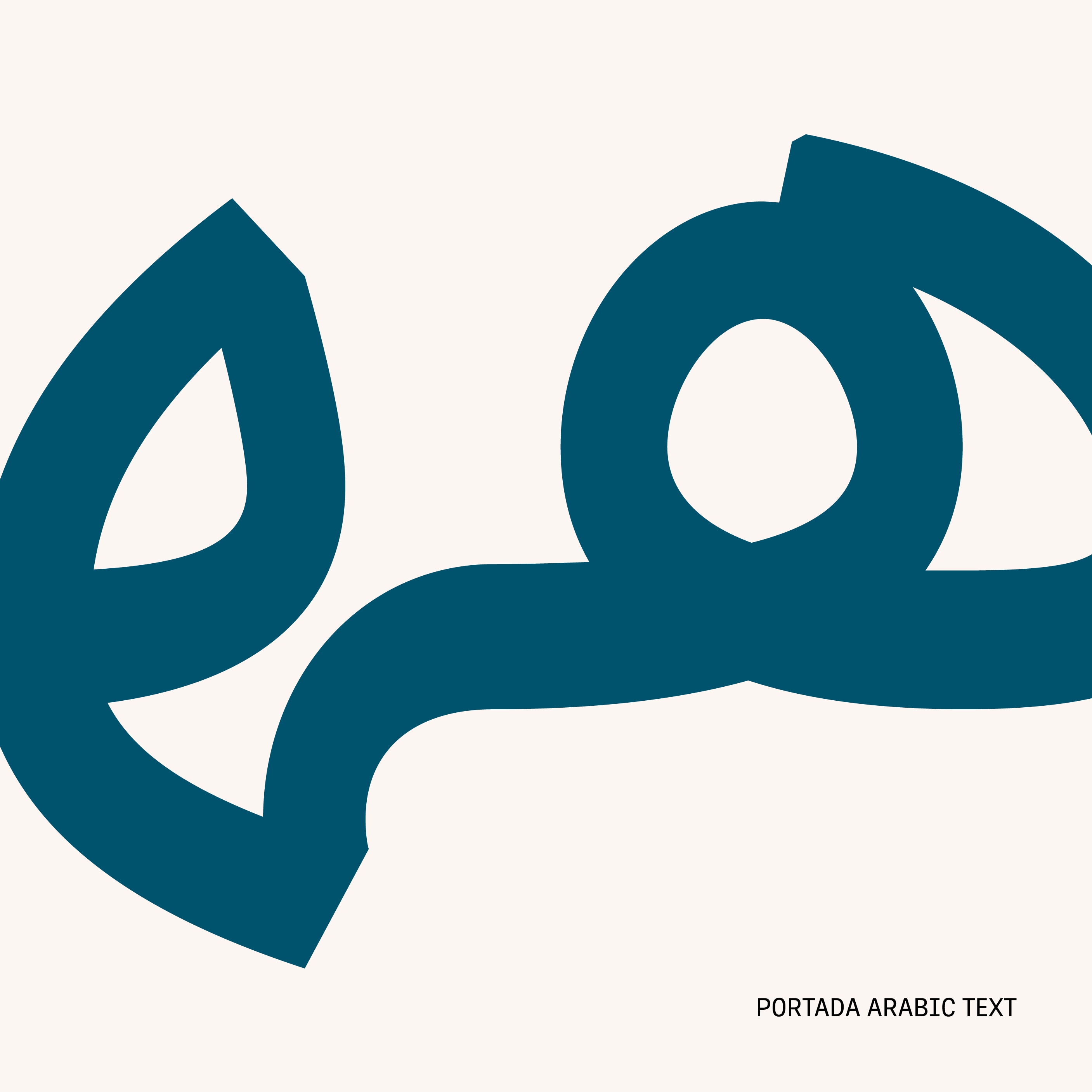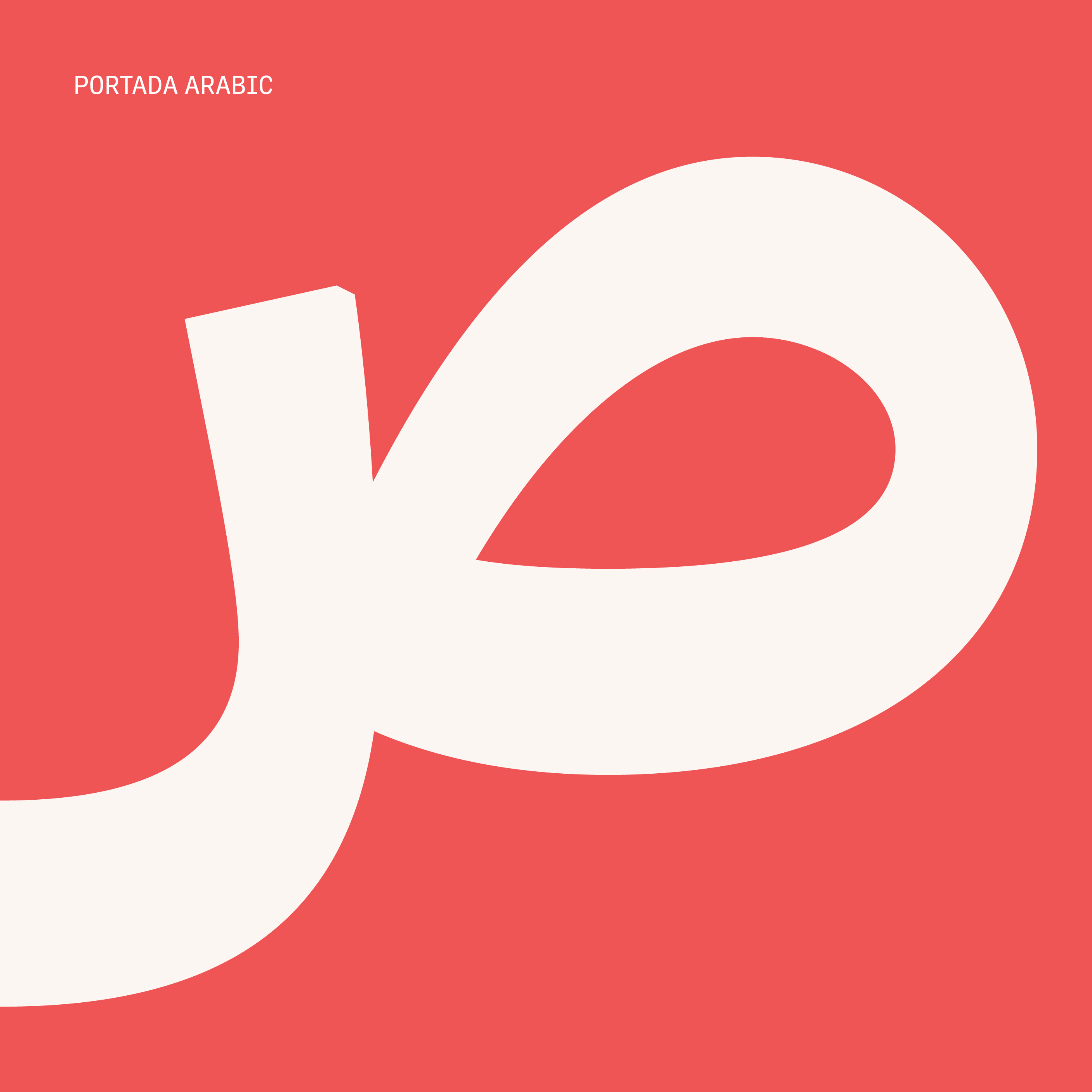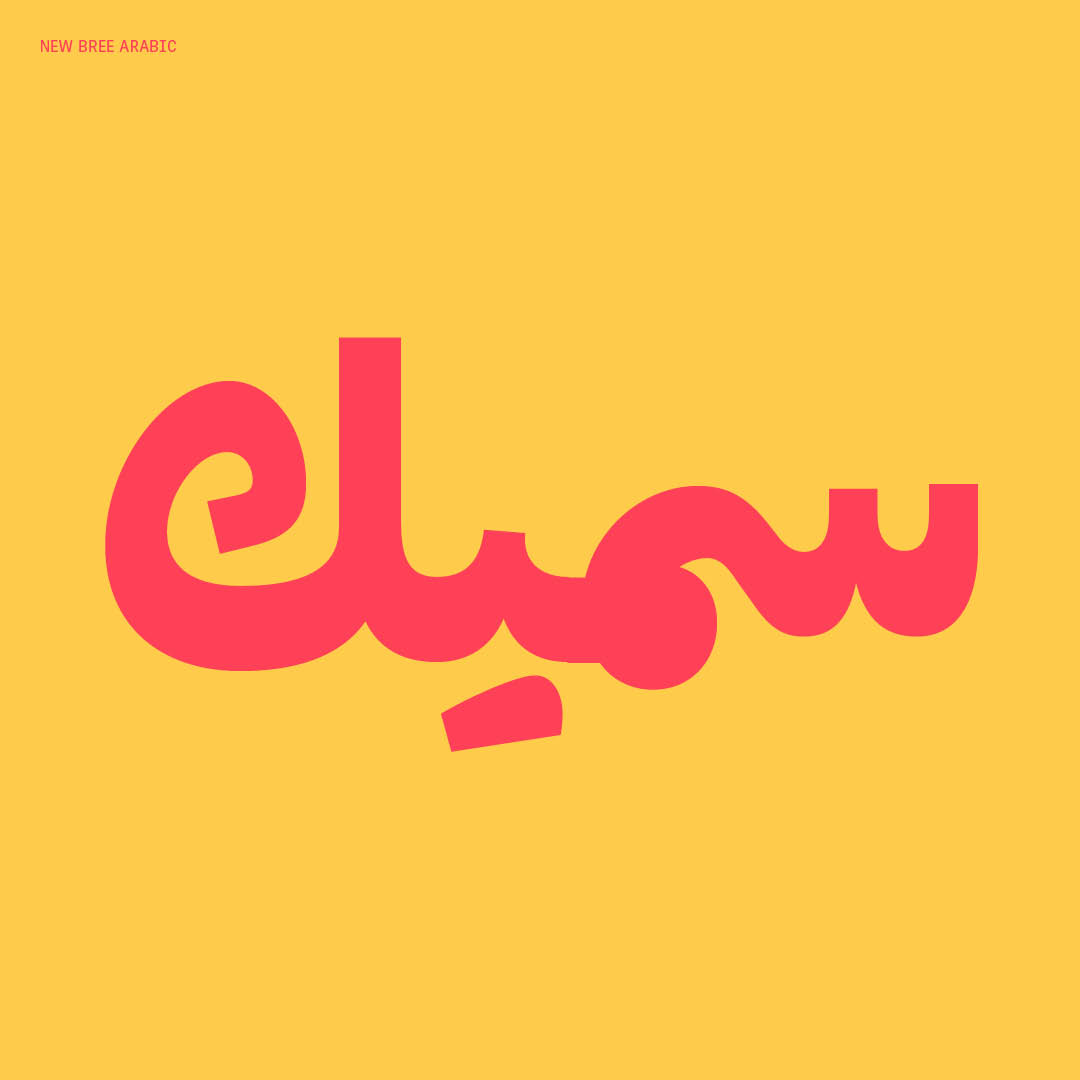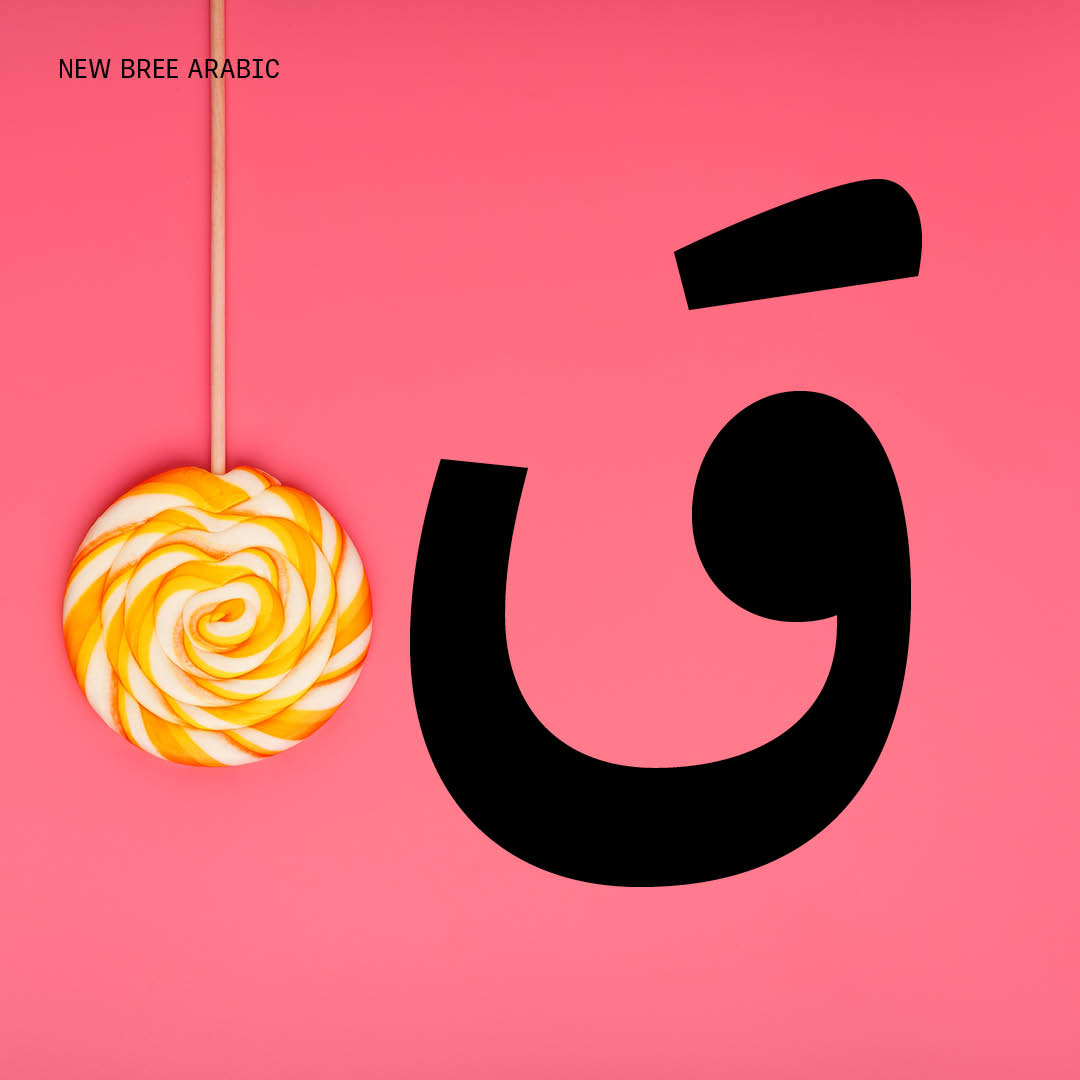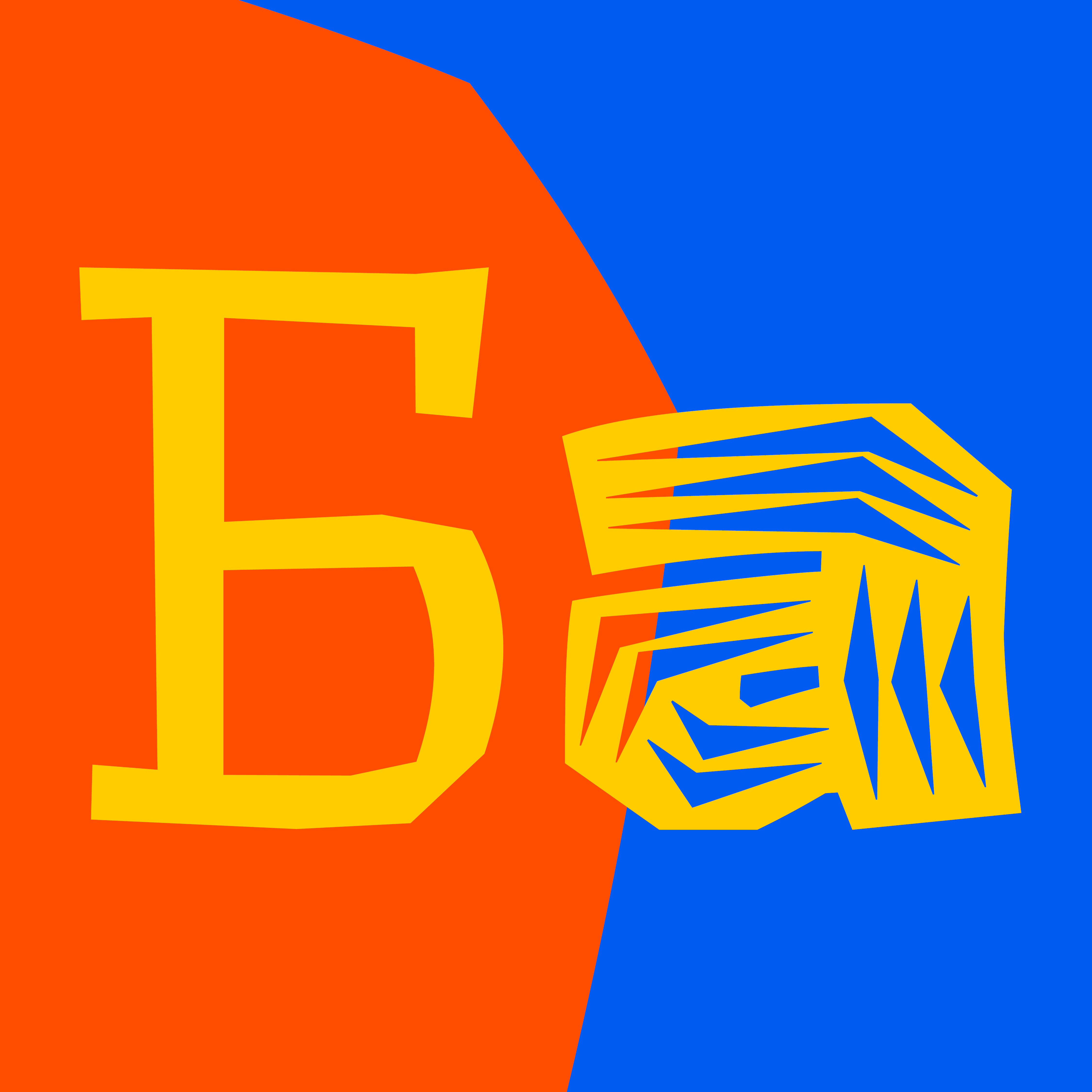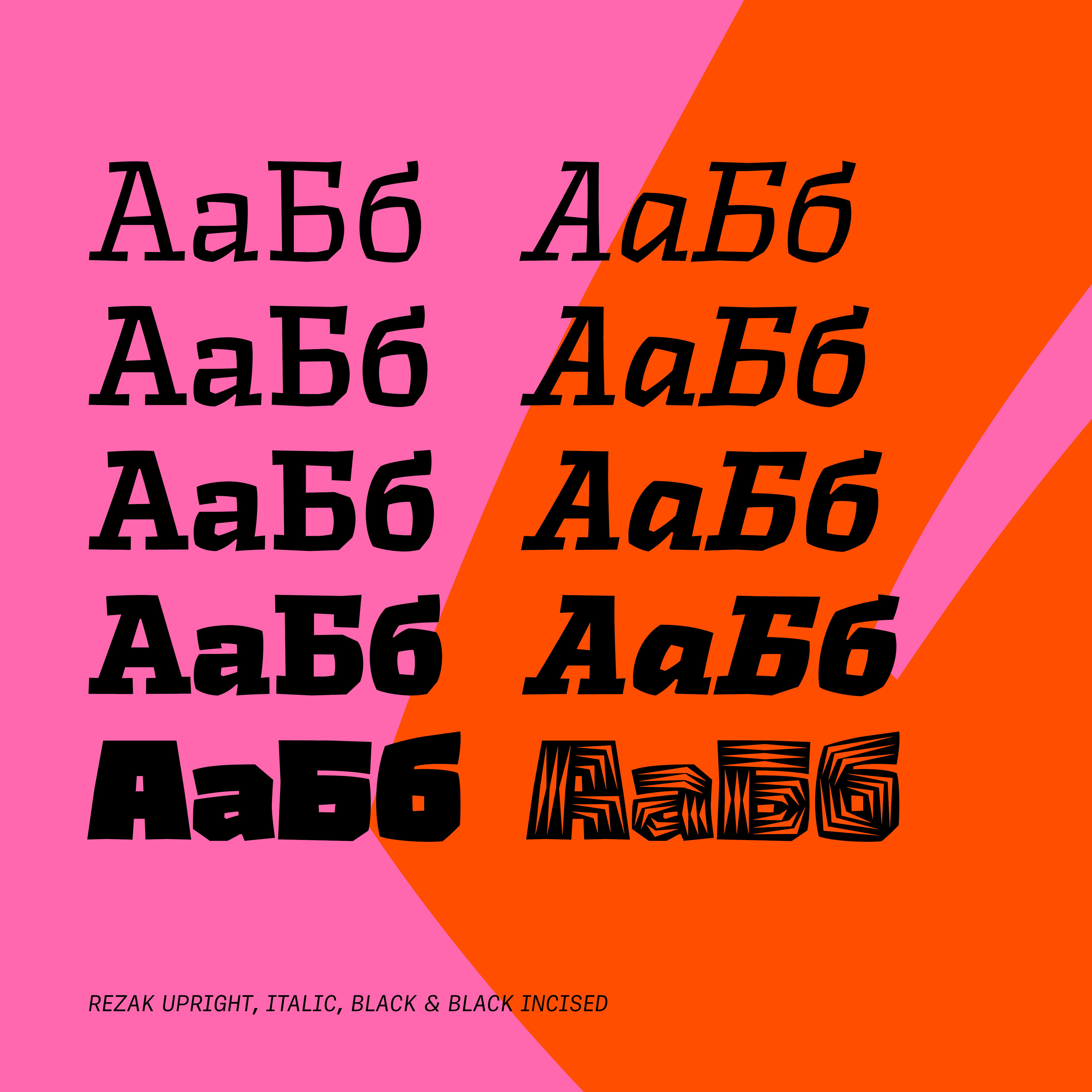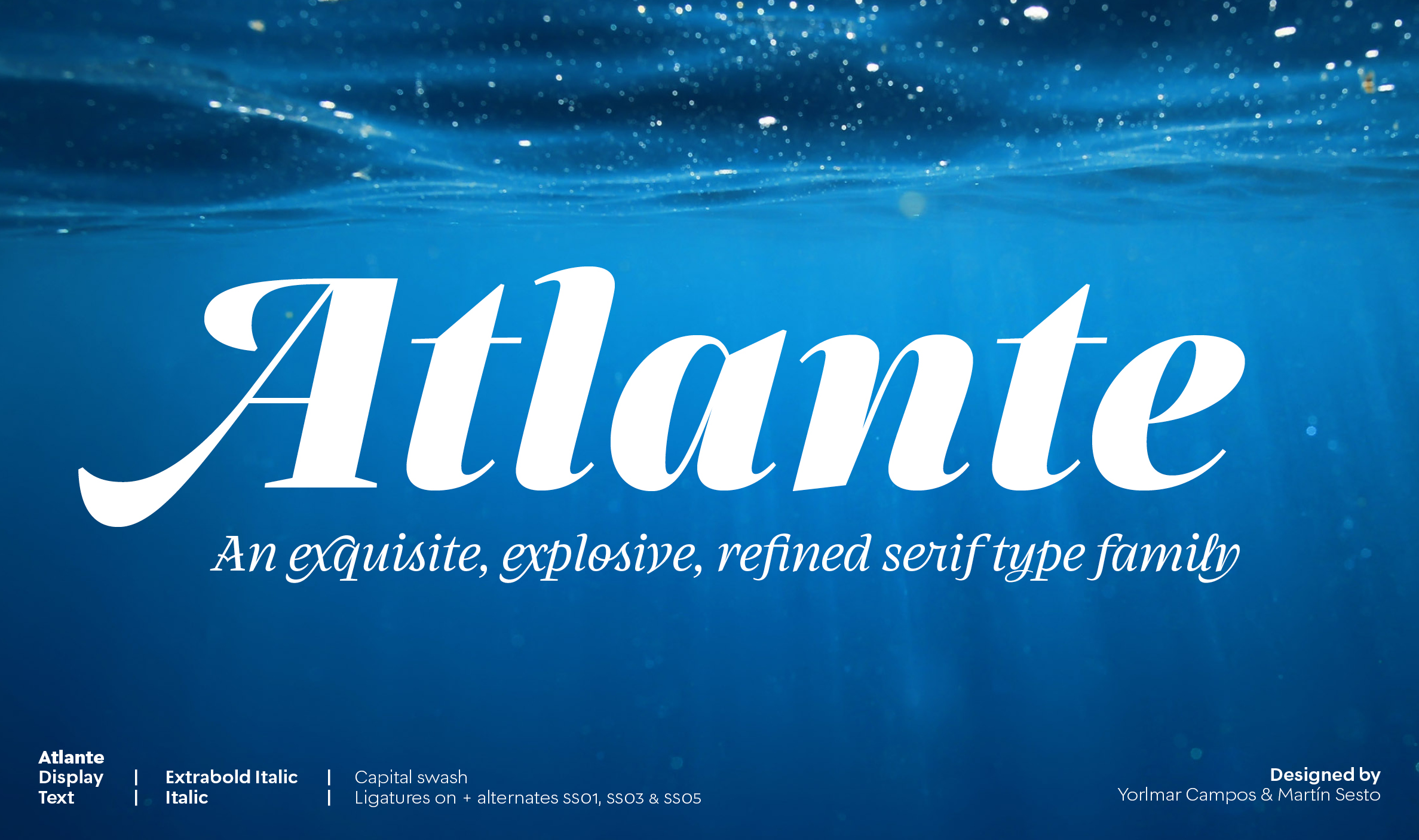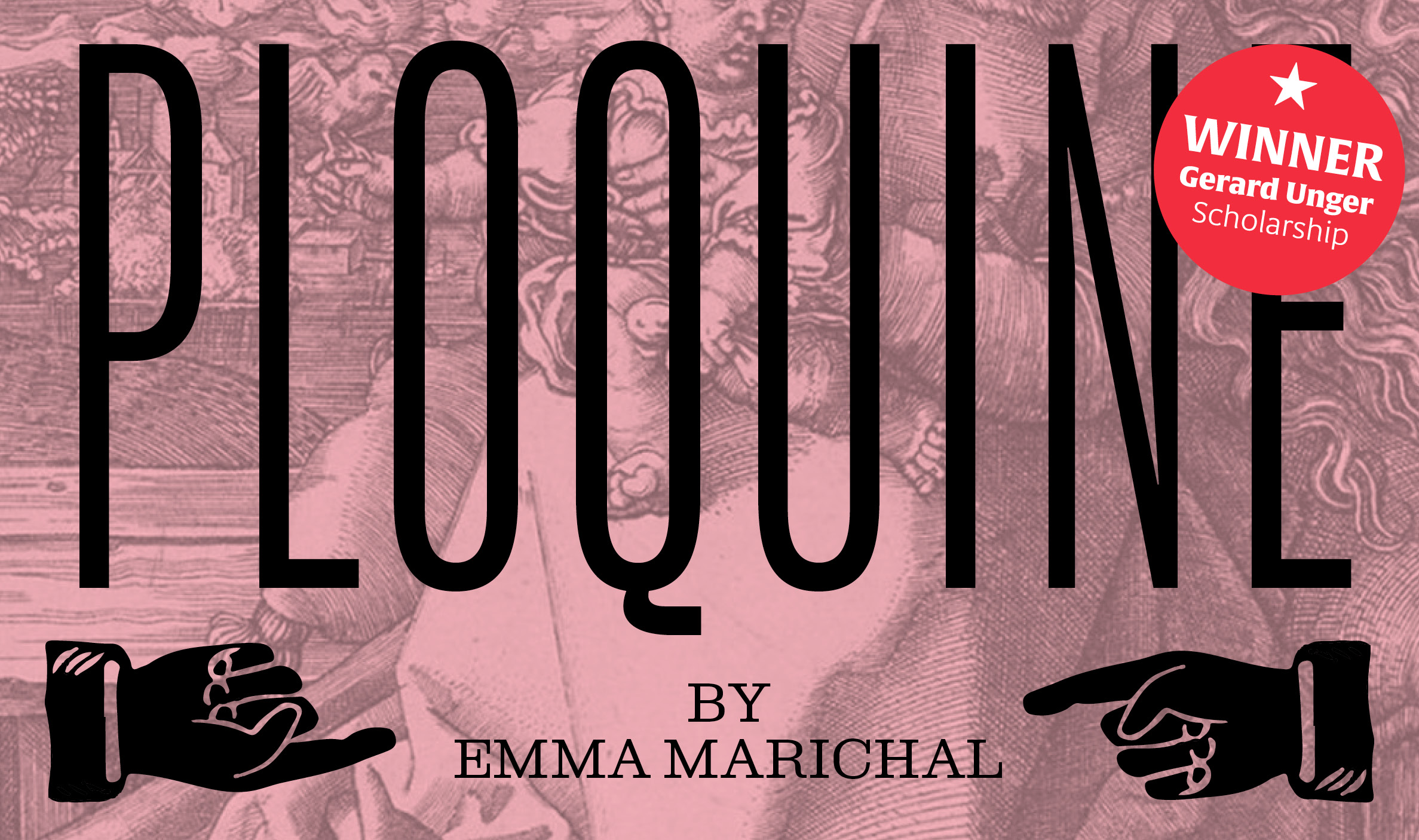
TypeTogether 2022 Résumé
As we go through life, it seems the days are long but the years are short. Each year we set big goals based on what we’d like to contribute to society and the world of fonts over the next decade, and to close out the year we like to look back and celebrate those achievements.
Type — the standardised approach to communication — is an inherently communal thing. So the best thing each year is always the connections we’ve made and the way we’ve been able to help you in your line of work. If we’ve been able to create something you were able to use, then we feel great about that. 2022 was another great one for us as educators and type designers: several typefaces released, our Building ligatures book celebrating 15 years of creating, another worthy scholarship winner, engaging articles, and giving back to the design and font communities. See what you might have missed in this annual review.
New typefaces
We continued full speed ahead with variable fonts for new releases and adding depth and breadth to our available font catalogue.
Our first 2022 typeface release was Azza Alameddine’s Bree Arabic, a spirited and rhythmic handwriting style, ideal for display use and friendly paragraphs. Bree now speaks in five different scripts while still carrying the same tone and working in digital and printed materials. Sahar Afshar expanded our Portada family with Portada Arabic and Portada Arabic Text, both based on Naskh for clear screen reading and employing variable font technology. The Portada family now includes Latin, Thai, and Arabic, with our upcoming Cyrillic, Pinyin, and Vietnamese script extensions.
Speaking of Cyrillic, Gerard Unger Scholarship winner Anya Danilova’s Rezak and Rezak Cyrillic made a solid debut (in every sense of the word). Rezak is a jaunty, dynamic type family that stretches beyond one specific font category and use. It’s Black and Black Incised styles get all the headlines (literally), but the rest of the family remains invigorating and poised for branding, packaging, poster, and book use.
The summer typeface releases hit an emotional high point with Yorlmar Campos and Martin Sesto’s Atlante family — conventional but excessive in all the best ways. Its 36 styles are packed with more swashes, alternates, and ligatures than a reasonable person would expect, but Atlante was made to overwhelm rather than be reasoned with. Want reasonable? Then grab the two variable fonts and marvel at the small file size (compared to the full static family), even though your style options increase to *infinity*.
Not to be outdone, José Scaglione and Veronika Burian released the three-subfamily Aneto just a few weeks ago and it’s a do-it-all family! Aneto and Aneto Text are aesthetically captivating and applicable to all editorial formats. Aneto Skyline is a display of power in three widths for relevant and reverberating digital and print headlines. This memorable serif family creates flawless screen rendering, warm print production, and smooth readability, and its four variable fonts reduce the file size while giving designers and developers infinite control. More than that, it is the crescendo to our typographic magazine suite — Aneto, Belarius, and Catalpa — by providing the tension and the capabilities needed to set an entire professional magazine.
Custom Fonts
As an extension to our custom typeface for Ötztal in 2020, we were again commissioned to create an additional headline font for Ötztal Norden Agentur, Austria. They (and we) are very happy with the results!
Type in use
We’ve seen some fantastic work using our typefaces over the years. Here’s a few that stood out this year.
Lektorat at MCBW
Adelle Sans in Dubai’s Spanish Pavilion
Soleil in Forum Typografie
Postea & Bely in Hanna Nagel Exhibition catalogue
Awards
When we make typefaces, awards are never the goal. But there is certainly something encouraging about being honored by others in the type and design world. Congratulations to our team for all their hard work and creativity!
Postea won Gold at Indigo awards
Belarius won Silver at Indigo awards
Noort Bengali, Selección Clap
Bree Arabic, Selección Clap
Atlante, Clap Platinum
Bely won Gold for Type in Motion at Indigo awards
Printed Collectibles
We don’t always create ephemera, but when we do it’s some classy stuff. Our good friend and designer Cesar Sesio designed four posters that are available in our store: Postea, Catalpa, Lektorat, and Molto. We just printed a Rezak poster in stunning silver, yellow, and red, and our newest poster uses our Catalpa wood type for some dual-toned letterpress goodness. We also are wrapping up printing of a new Bree Arabic poster.
Gerard Unger Scholarship
In July we announced the winner of the 2022 Gerard Unger Scholarship: Ploquine by Emma Marichal. Emma has given several talks about it already and is steadily working on the unique family.
Talks
The sheer amount of giving back to the design and type community that TypeTogether accomplishes is a little overwhelming. Here’s the highlights:
Veronika
–May: “Building ligatures” book presentation at UMPRUM, Prague (together with José)
–August: “Building ligatures book”, behind the scenes at Raabs symposium, tga, Austria
–September: TypeTogether and TypeThursday BCN (talks by Elena Ramirez, Nina Fualhaber, Emma Marichal, and book presentation by José and Veronika)
But more than anything, our focus is on partnering with you to make your business an even greater success. Every advancement we make, every opinionated or sublime font we create, and every educationally rich article we produce is all meant to make your sphere more influential, branded, positive, and fun. Whether you’re a freelancer just edging into the deep waters of typography or a company of global renown, we value partnerships and helping you move forward. We always have an open door, so reach out at any time and let’s connect. It’s gonna be another great year with TypeTogether!